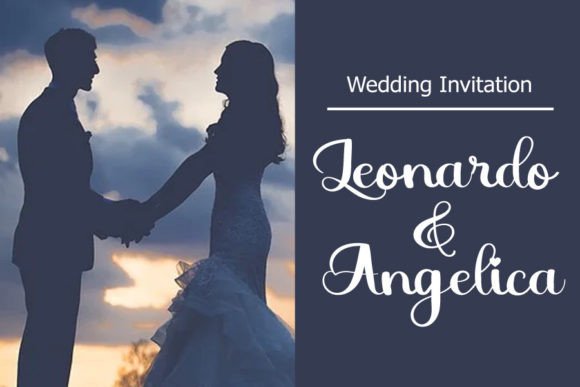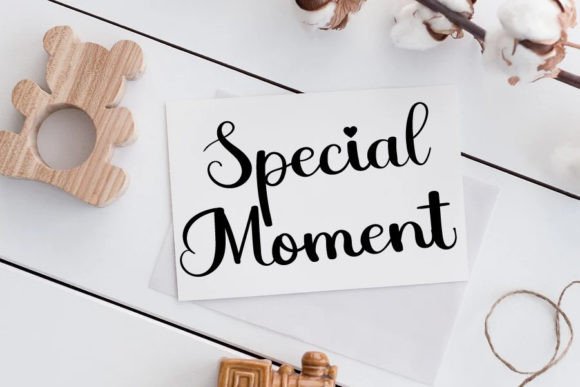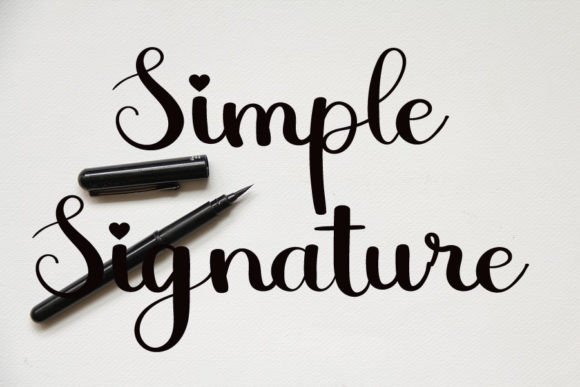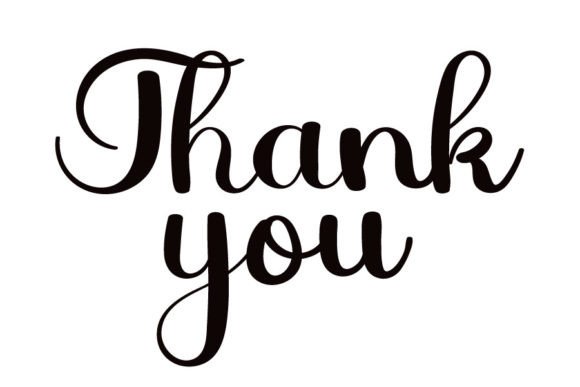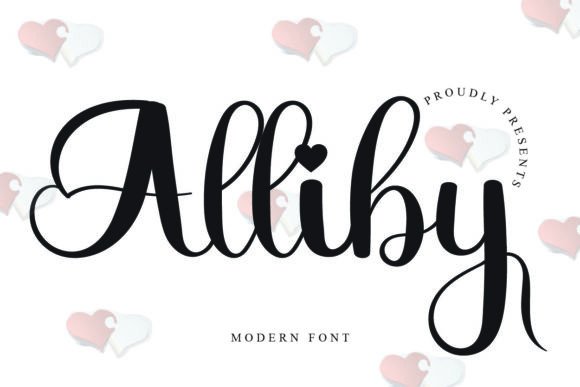
Introducing Alliby Font: Elevate Your Designs with a Fresh and Beautiful Handwritten Style
In the world of design, typography plays a crucial role in conveying messages, expressing creativity, and capturing the audience’s attention. For designers, crafters, and businesses looking to make a statement, a unique and versatile font can be a game-changer. This is where Alliby Font comes into play – a fresh and beautiful handwritten font designed to take your designs to the next level.
What Makes Alliby Font Special?
Alliby Font is a meticulously crafted handwritten font, perfect for a wide range of design purposes. Whether you’re working on YouTube banners, social media covers, logos, mockups, wedding invitations, ID cards, flyers, or crafts, Alliby Font is the ideal choice. Its simplicity and uniqueness make it stand out from the crowd, allowing your designs to shine with elegance and sophistication.
Key Features of Alliby Font
- Fresh and Beautiful Design: Alliby Font boasts a modern and captivating design that will instantly grab the attention of your audience.
- Handwritten Style: The font’s handwritten style adds a personal touch to your designs, making them more relatable and engaging.
- Versatility: Alliby Font is suitable for various design projects, from digital content to print materials.
- Simple and Unique: The font’s simplicity ensures easy readability, while its uniqueness sets your designs apart from the competition.
Benefits of Using Alliby Font
By incorporating Alliby Font into your designs, you can experience a significant boost in your business’s visual appeal and professionalism. Here are some benefits you can expect:
- Enhanced Visual Appeal: Alliby Font’s elegant design will elevate the overall look of your designs, making them more visually appealing.
- Professionalism: The font’s high-quality design and uniqueness will give your business a professional edge, helping you establish a strong brand identity.
- Improved Engagement: The handwritten style and simplicity of Alliby Font will make your designs more engaging and accessible to your audience.
- Increased Brand Recognition: Consistency in typography is key to building a strong brand. Alliby Font can help you establish a recognizable visual identity across your designs.
Tips for Using Alliby Font Effectively
To get the most out of Alliby Font, here are some tips to keep in mind:
- Pair it with Other Fonts: Experiment with font combinations to create a unique visual hierarchy and add depth to your designs.
- Use it Consistently: Establish a consistent visual brand by using Alliby Font across your designs, from digital content to print materials.
- Play with Colors: Alliby Font looks great in various colors. Experiment with different hues to find the perfect match for your brand.
Alliby Font is a game-changing handwritten font that can elevate your designs and take your business to the next level. Its fresh and beautiful design, versatility, and simplicity make it an ideal choice for designers, crafters, and businesses looking to make a statement. By incorporating Alliby Font into your design arsenal, you’ll be able to create stunning visual content that engages, inspires, and leaves a lasting impression on your audience.